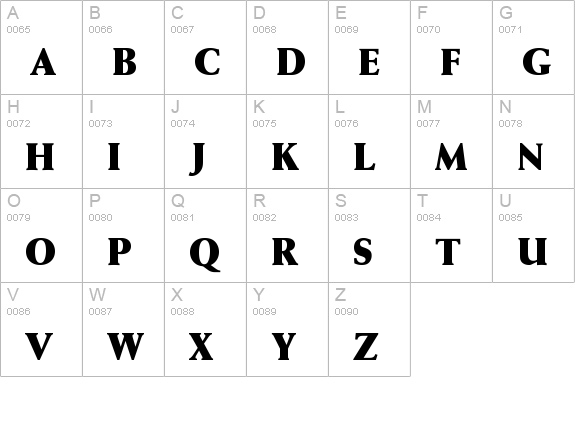
WeissAntiquaEF-ExBold Font Details
WeissAntiquaEF-ExBold is a stunning font that exudes elegance and sophistication. Its bold and powerful strokes make it perfect for creating eye-catching headlines, titles, and logos that demand attention. With its intricate details and carefully crafted design, WeissAntiquaEF-ExBold adds a touch of timeless beauty to any project. Its distinctive serifs and graceful curves evoke a sense of tradition and class, making it an excellent choice for projects that require a touch of nostalgia or a vintage feel. The versatility of WeissAntiquaEF-ExBold extends beyond its aesthetic appeal. Its bold weight ensures legibility even at smaller sizes, making it suitable for a wide range of design applications, from print materials such as brochures and posters to digital media like websites and social media graphics. One of the best things about WeissAntiquaEF-ExBold is that it is freely available to download at FontsMarket.com. This means that you can enhance your design projects without breaking the bank. Whether you are a professional designer or a hobbyist, having access to high-quality fonts like WeissAntiquaEF-ExBold can truly elevate your work and set it apart from the rest. So, if you're looking for a font that combines classic beauty with modern functionality, look no further than WeissAntiquaEF-ExBold. Download it for free at FontsMarket.com and unlock a world of possibilities for your next design endeavor.